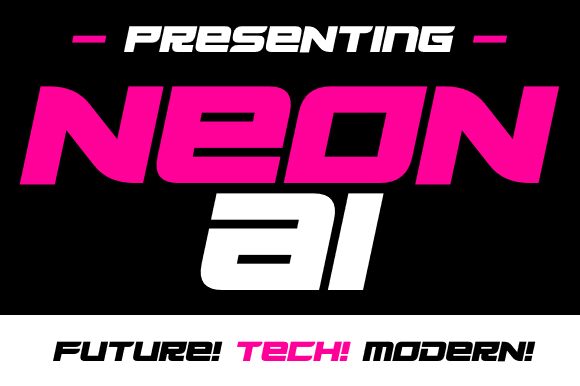
Neon AI Italic
Neon AI Italic font by Darrell Flood is a sleek, futuristic, and angular option ideal for technological and contemporary designs. This expanded free display font demonstrates bold structures with geometric segments that add visual contrast. Additionally, the font exudes an energetic vibe that pulls in readers and instantly captivates their attention by keeping them curious about what follows every character.
Use it in branding projects like logos as well as titles for magazines, posters, or social media posts. Its cues are also useful for user interfaces on websites or mobile apps since they match nicely with software-related themes. Business cards, catalogs, invitations, flyers, banners, mugs.